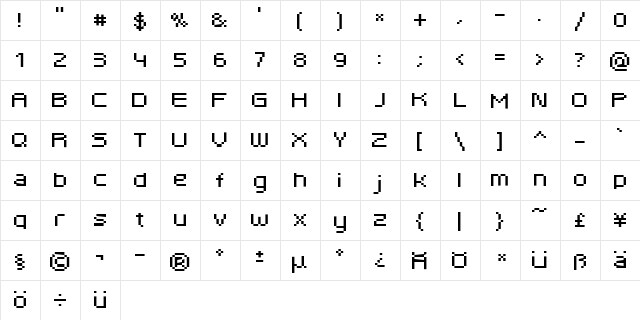
rktr6rg Regular Font Preview
rktr6rg Regular
rktr6rg Regular Font Details
Design Context for rktr6rg Typeface
rktr6rg takes a measured approach to typography — its balanced proportions and neutral character make it a reliable workhorse for both digital and print work.